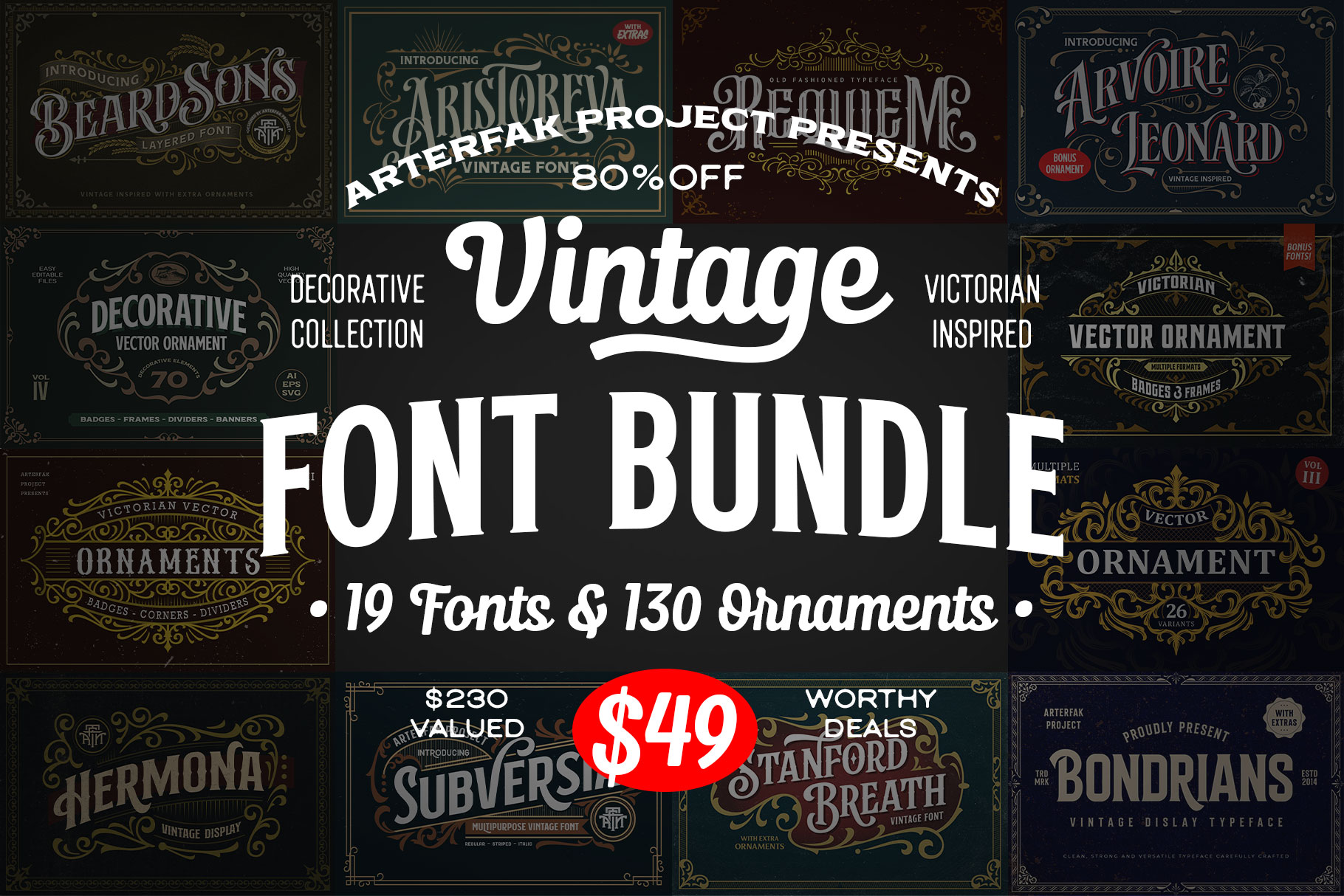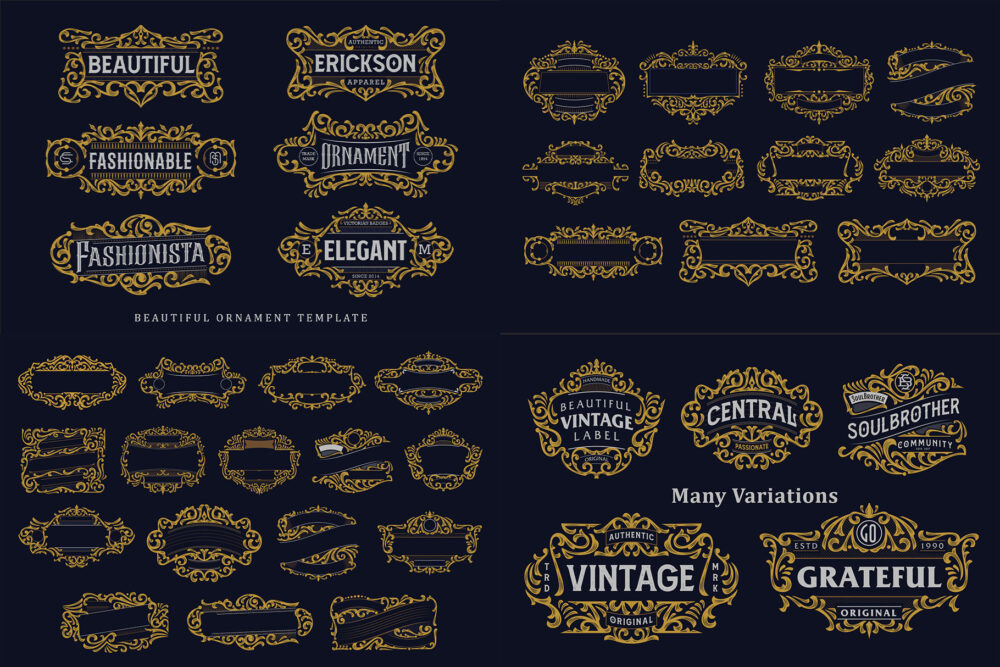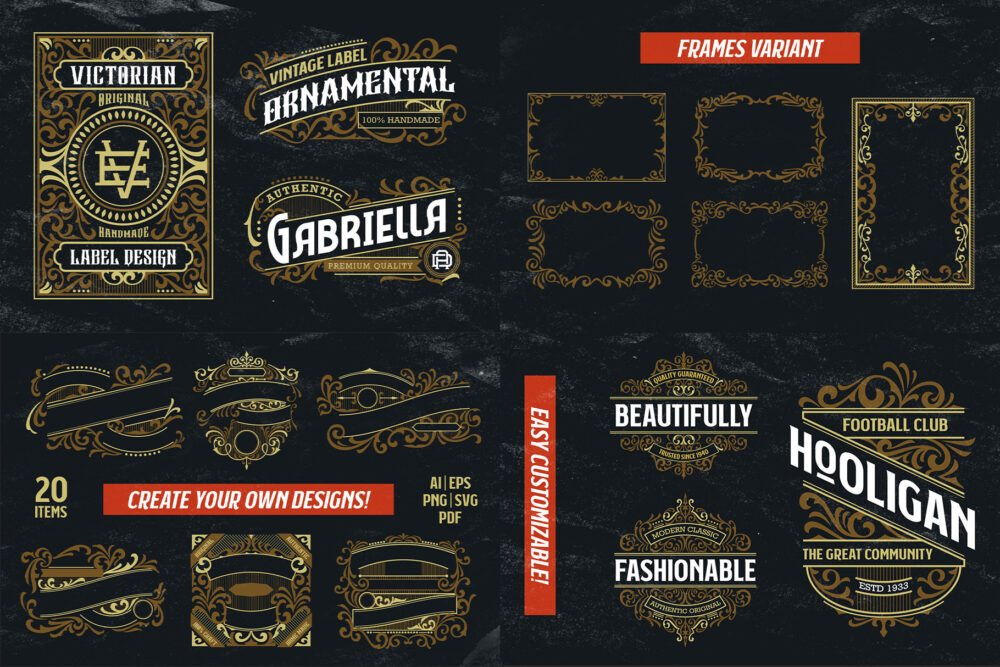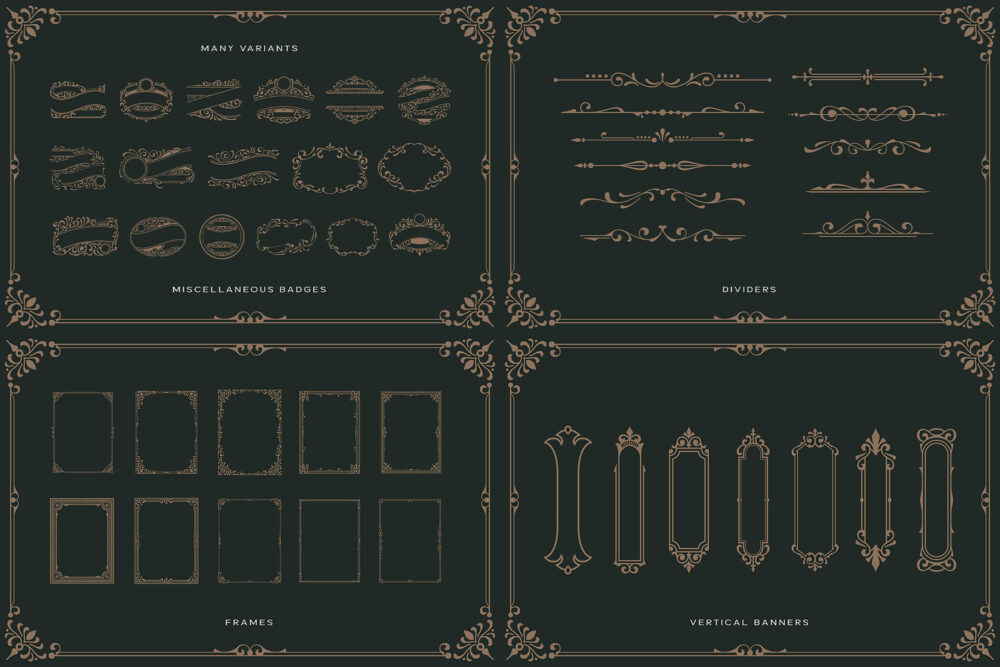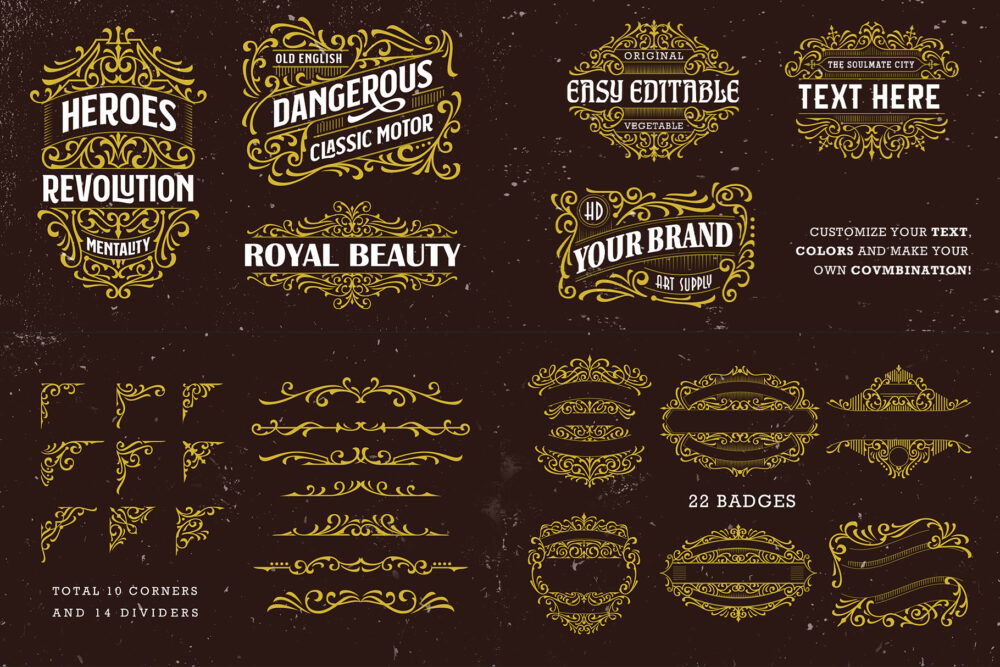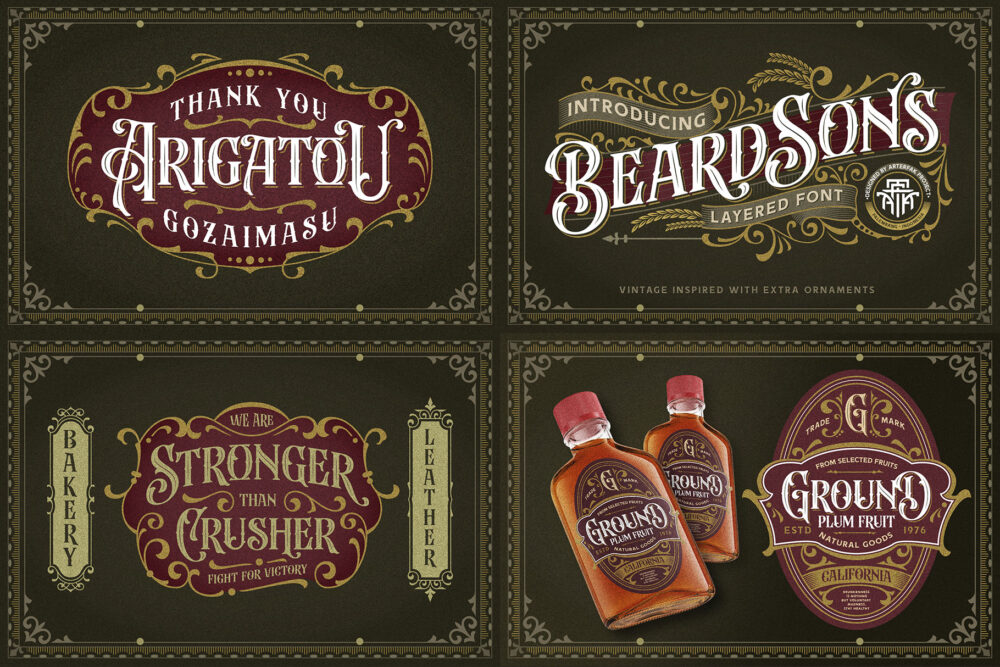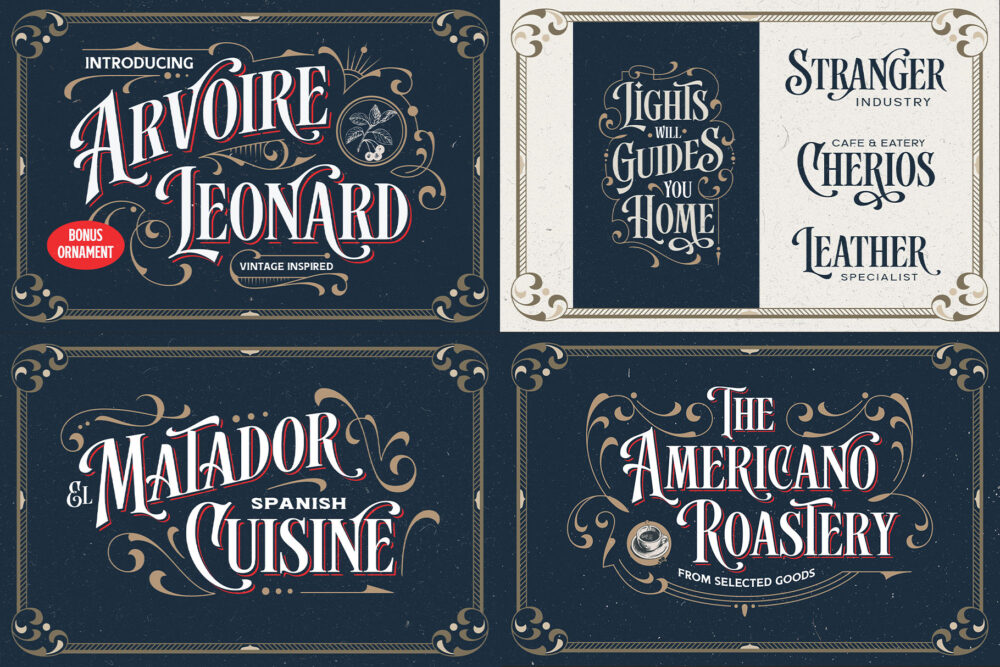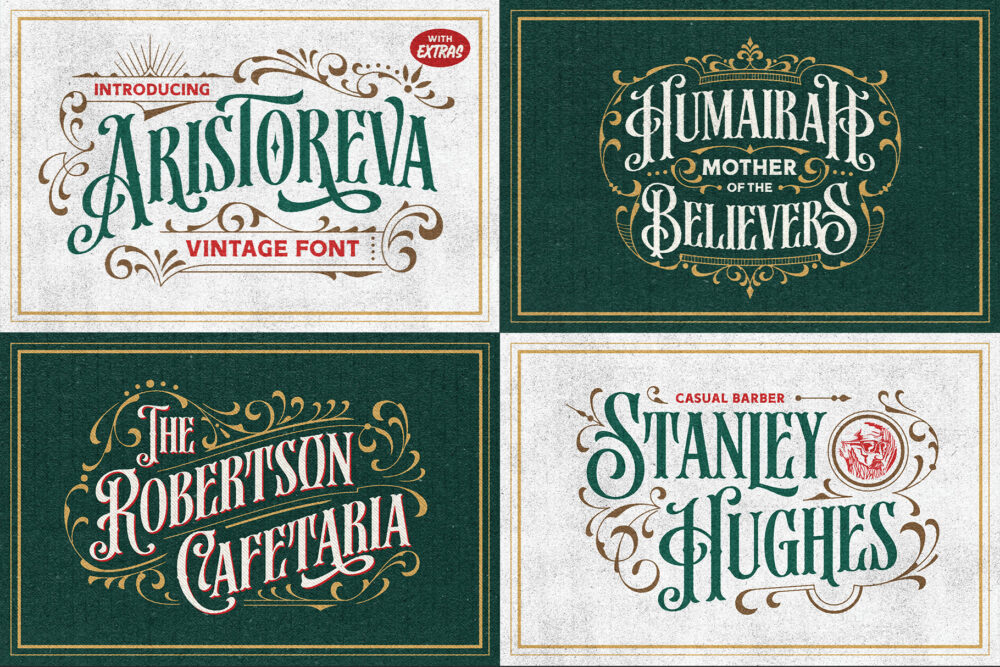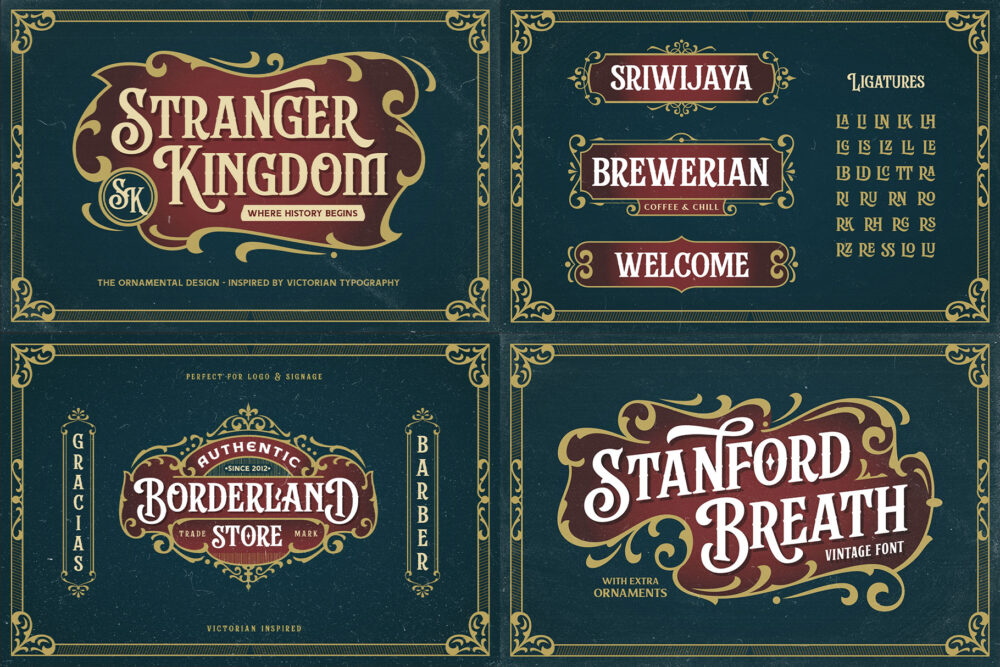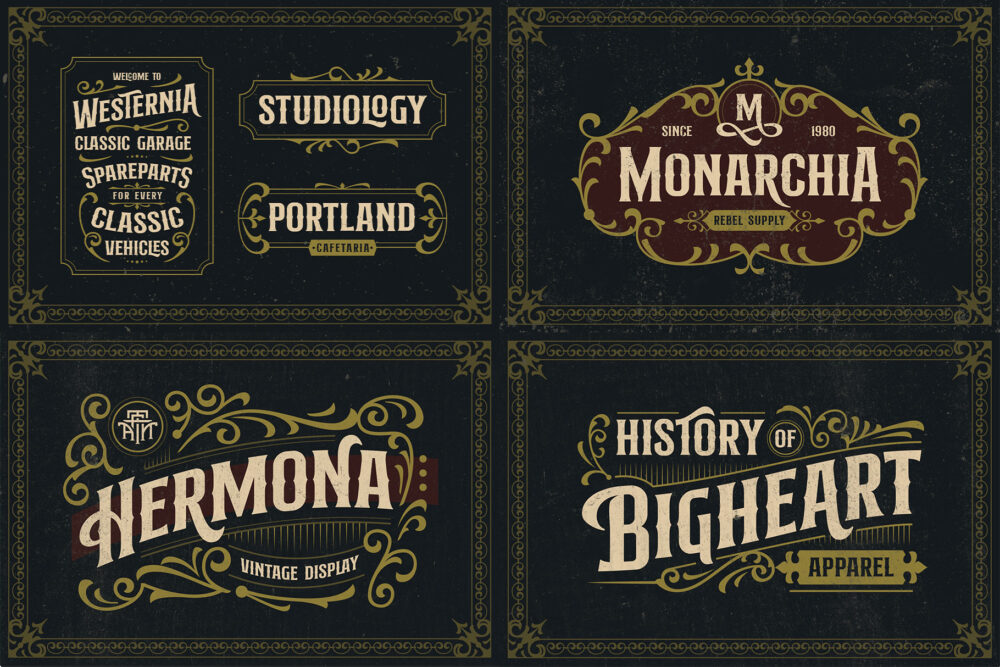
Introducing the Vintage Font Bundle & Ornaments, a premium collection that includes 8 best-selling vintage fonts and 4 sets of ornament packs.
The font packages feature alternates, swashes, ligatures, and extras, making them perfect for various purposes such as logos, signage, posters, cards, apparel, labels, packaging, headers, and more. You can also combine the fonts with the ornament packs to unlock even more design possibilities with ease!
• 8 Fonts
• 130 Ornaments (Borders, Badges, Corners, Panels & Dividers)
Items included :
Fonts :
• Beardsons
• Arvoire Leonard
• Aristoreva
• Stanford Breath
• Hermona
• Bondrians
• Subversia
• Requiem
Ornaments
• Victorian Ornaments Vol. I
• Victorian Ornaments Vol. II
• Victorian Ornaments Vol. III
• Victorian Ornaments Vol. IV
Vintage Font Bundle & Ornaments